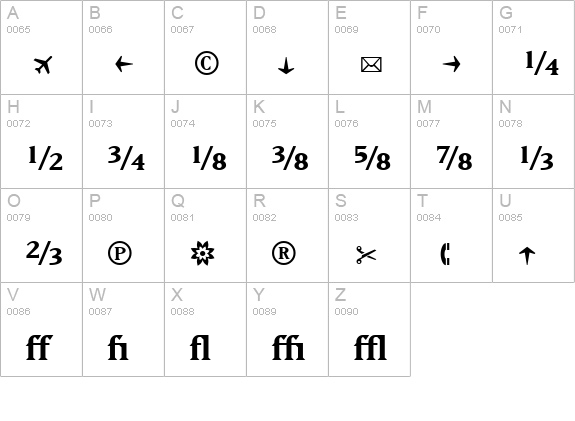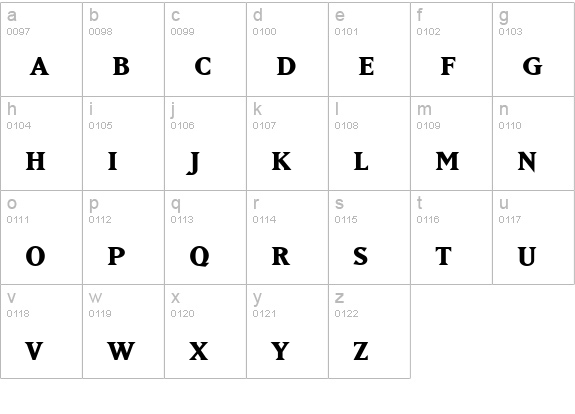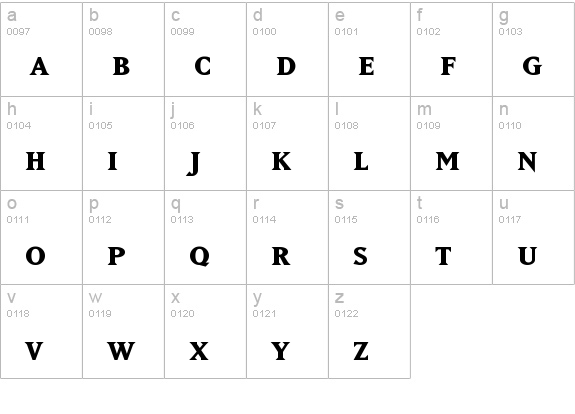
MatrixBoldFractions Bold Font Details
MatrixBoldFractions Bold is a strong, high-contrast variant in the MatrixBoldFractions typeface family \xE2\x80\x94 well suited to headlines, attention-grabbing titles, and strong calls-to-action.
Introducing MatrixBoldFractions Bold font, a sleek and modern typeface designed to make your text stand out with its bold and eye-catching appearance. Perfect for titles, headings, or any design project where you want to make a statement. This font features sharp edges and a distinct style that exudes confidence and sophistication. The best part? MatrixBoldFractions Bold font is completely free for personal and commercial use, allowing you to add a touch of elegance to your projects without breaking the bank. You can easily download this font at FontsMarket.com and start using it in your designs today. Don't miss out on this opportunity to elevate your typography game with this fantastic typeface.